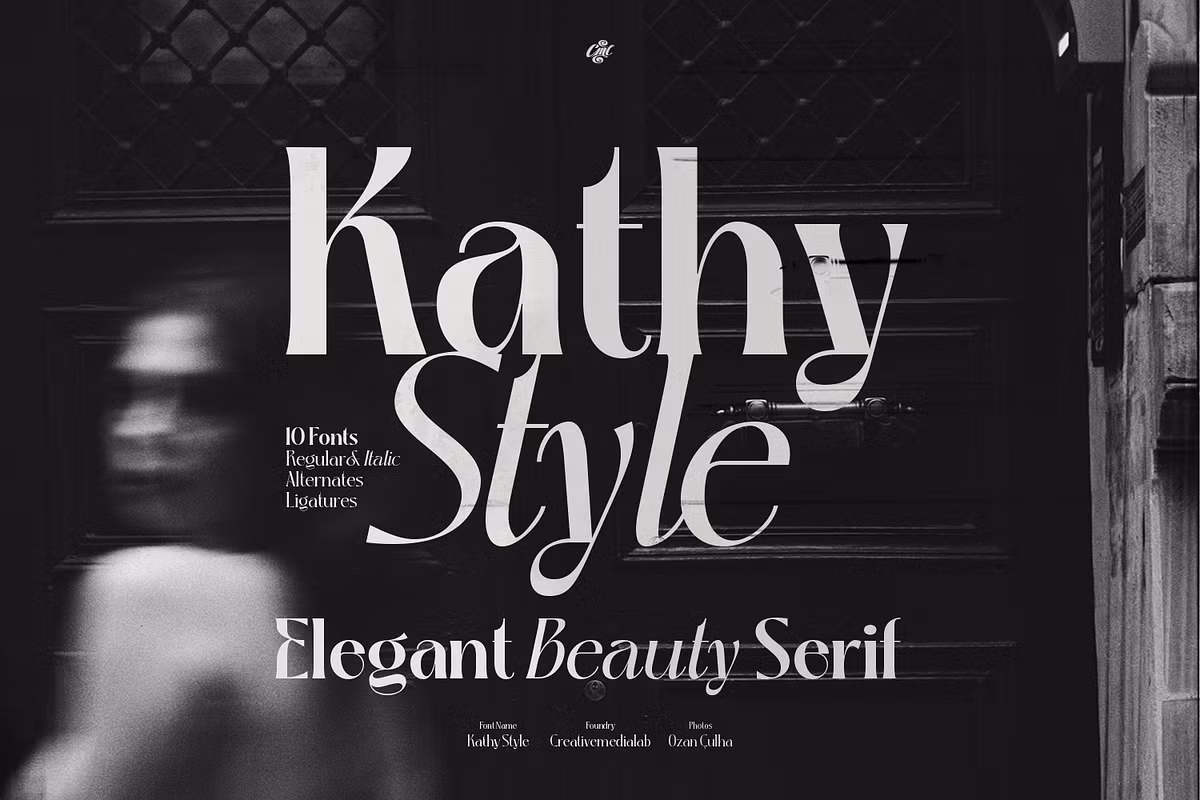
Kathy Style - Elegant Beauty Serif Font is perfect for beauty brand identities, feminine fashion magazines, elegant cosmetics packaging, luxury skincare labels, sophisticated wedding stationery, high-end salon branding, beauty blog headers, graceful jewelry designs, refined lifestyle publications, premium beauty products, elegant portrait photography watermarks, and sophisticated feminine communications.
Kathy Style - Elegant Beauty Serif Font is exciting because it embodies the essence of feminine grace and sophisticated beauty through its delicate serif details and refined letterforms that celebrate elegance, charm, and timeless feminine appeal with every character. This exquisite typeface features graceful curves and sophisticated proportions that capture the spirit of classic beauty and modern sophistication. The font's elegant aesthetic creates instant connections with audiences who appreciate refined beauty, feminine grace, and sophisticated style that transcends trends.
Kathy Style - Elegant Beauty Serif Font includes comprehensive font families: Regular Graceful Style, Bold Confident Beauty, Light Delicate Touch, Medium Elegant Balance, Italic Flowing Grace, Condensed Refined Width, Extended Sophisticated Format, Ultra Light Feminine, Black Dramatic Style, and Special Beauty Symbols, providing complete solutions for elegant feminine design requirements and sophisticated beauty brand communications.
This sophisticated typography solution transforms ordinary communications into elegant beauty experiences through its refined feminine aesthetic and graceful design language. Kathy Style - Elegant Beauty Serif Font Free Download enables designers and beauty brands to access premium elegant serif typography that instantly adds sophistication, feminine charm, and beauty appeal to any creative project. The font's meticulously crafted proportions ensure exceptional elegance while maintaining readability and distinctive feminine character.
Beauty brands, fashion houses, and feminine lifestyle companies trust Kathy Style - Elegant Beauty Serif Font for its ability to communicate elegance, beauty, and sophisticated femininity to audiences seeking refined beauty experiences and elegant lifestyle products. The typeface's graceful construction performs beautifully across various applications, from intimate beauty communications to large-scale fashion campaigns. Its extensive character support includes multilingual capabilities and elegant design elements that enhance sophisticated feminine brand presentations.
The design philosophy behind Kathy Style - Elegant Beauty Serif Font celebrates the timeless appeal of feminine elegance and the sophisticated beauty that defines classic style and graceful communication. This beauty-focused approach creates a font that feels genuinely elegant while maintaining contemporary relevance across different beauty contexts and sophisticated feminine brand expressions.
Whether creating beauty brand identities, feminine fashion materials, or elegant lifestyle campaigns, this elegant beauty serif delivers exceptional results that embody sophisticated femininity and timeless grace. Download Kathy Style - Elegant Beauty Serif Font today and discover how premium elegant typography can transform your design projects into beautiful expressions of feminine sophistication, graceful elegance, and the refined beauty that defines the most sophisticated and elegant feminine brands.